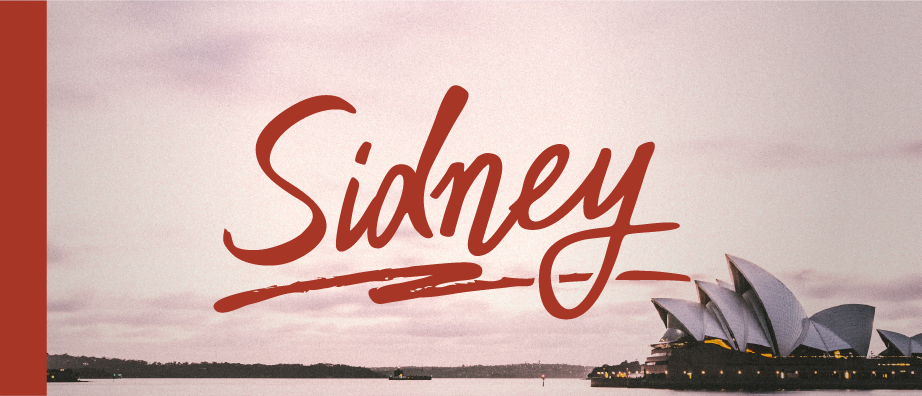
Sidney - Family
Check out Sidney, our new script font! It is a messy typeface with 300 glyphs, ligatures, and extra letters. You can perfectly combine the two styles (clean & rough) for your very unique design. And don’t forget to add some of the vectors, which are included in the full version of Sidney. Enjoy!